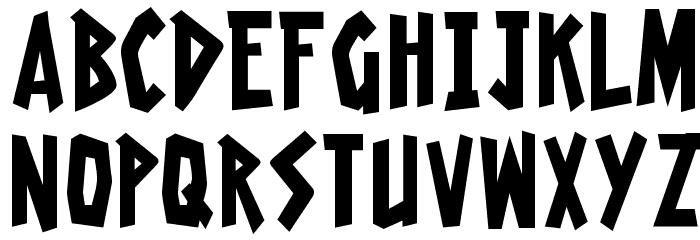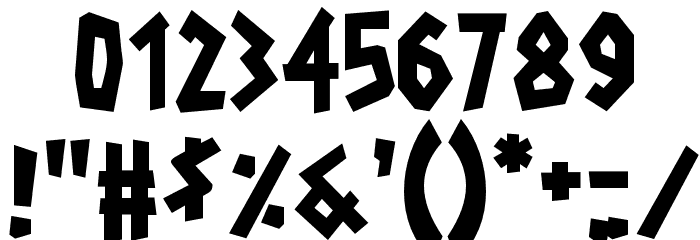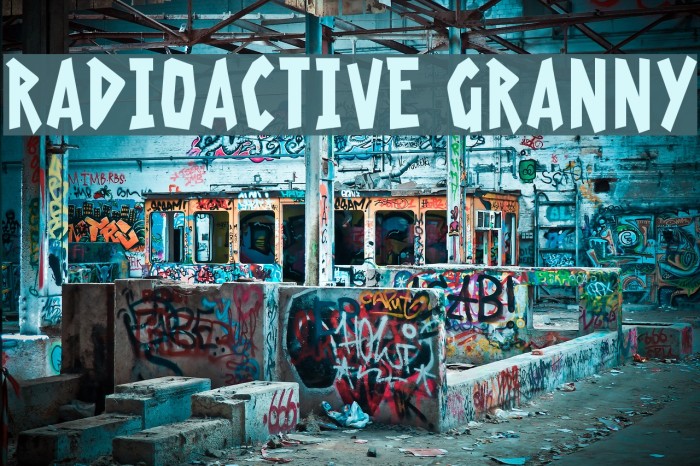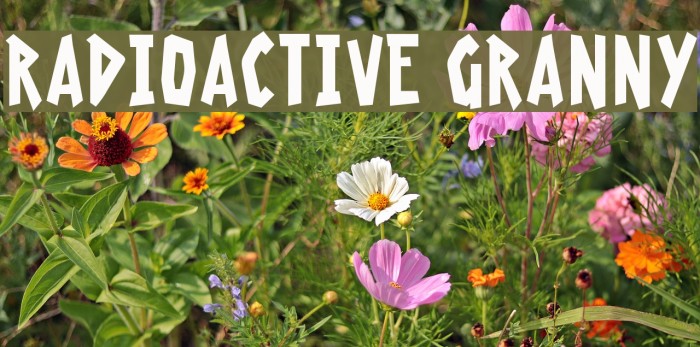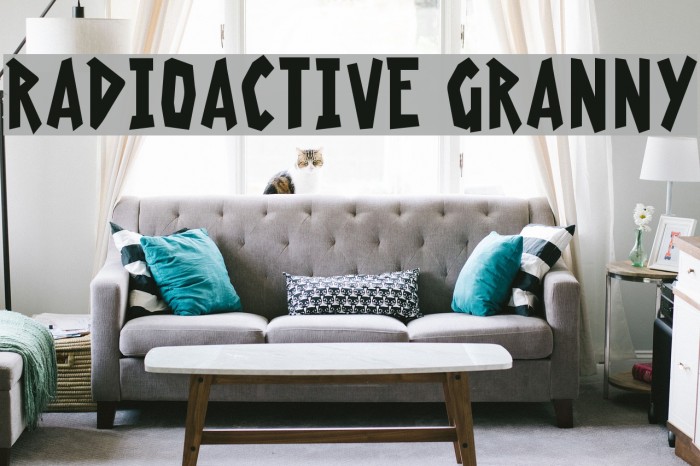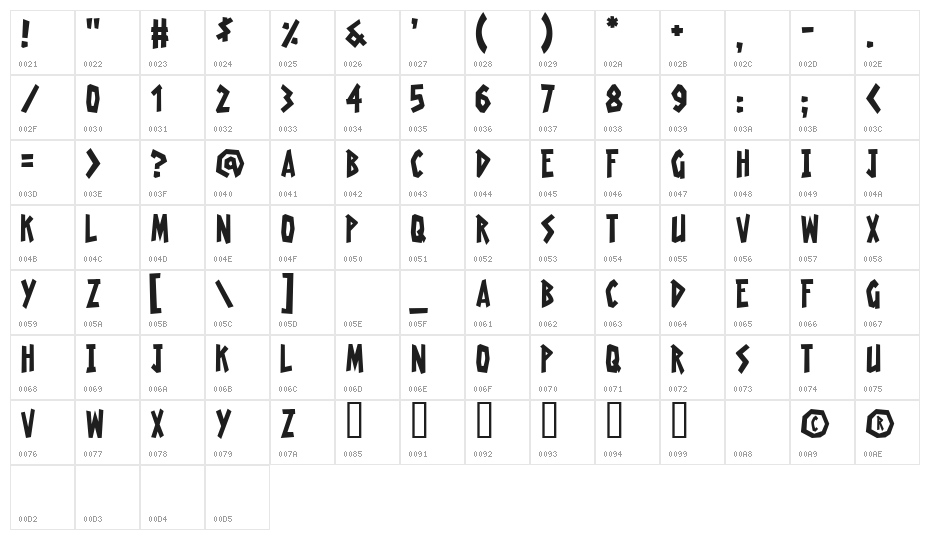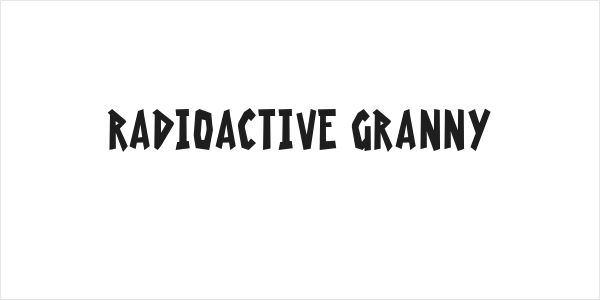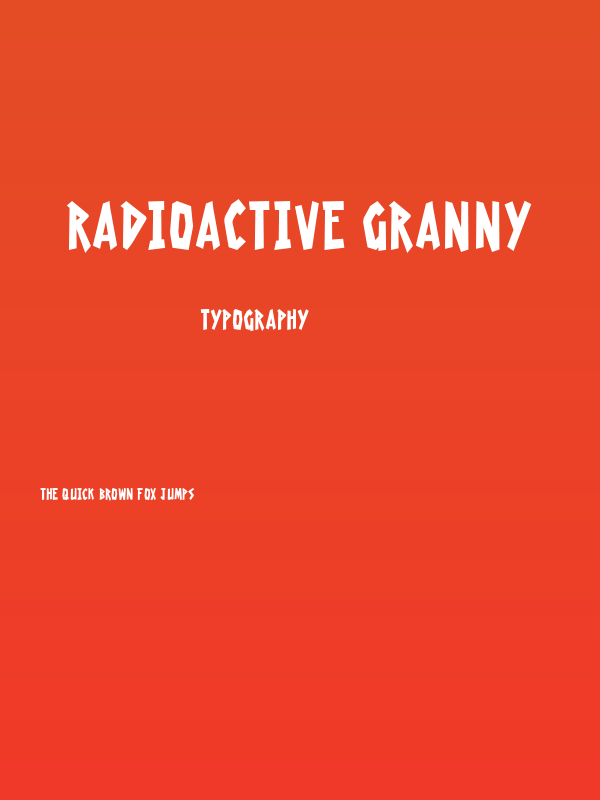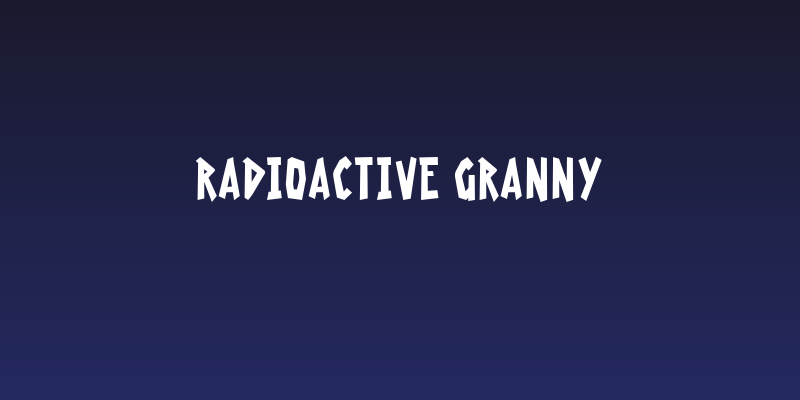
Radioactive Granny Font
This font features a bold and dynamic style with sharp, angular edges and a slightly irregular form, giving it a unique, edgy appearance. The uppercase letters are particularly striking, with exaggerated angles and a sense of movement that suggests energy and vibrancy. The numbers and special characters maintain this bold aesthetic, ensuring consistency across all glyphs. The overall design is reminiscent of a hand-drawn or graffiti-inspired style, making it ideal for projects that require a strong, impactful visual presence.
A bold, angular font with a dynamic, edgy style.
- Proposed Projects: Perfect for posters, album covers, street art designs, and any project needing a bold, energetic typeface.
- Overall Style: Modern, Edgy
- Use Case: Headlines, Posters, Logos